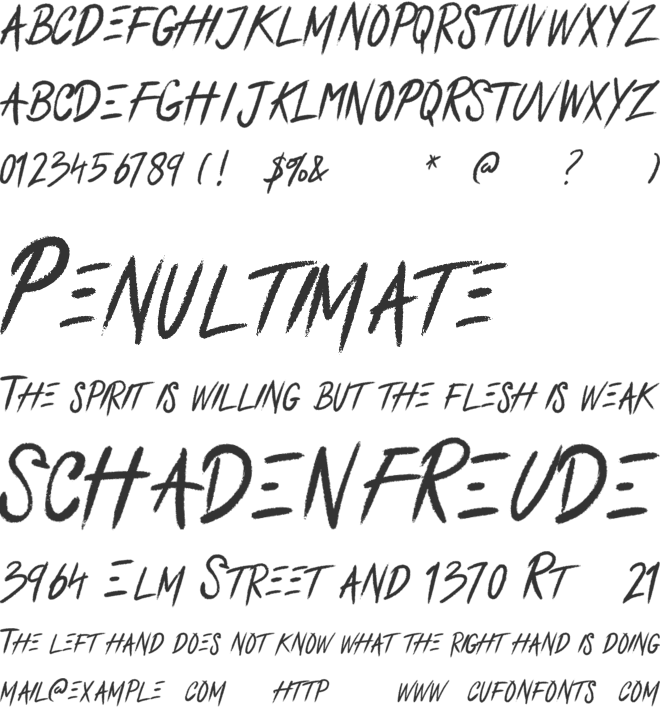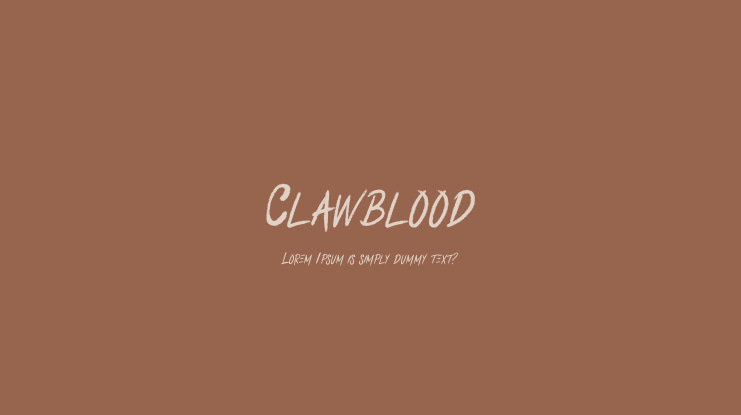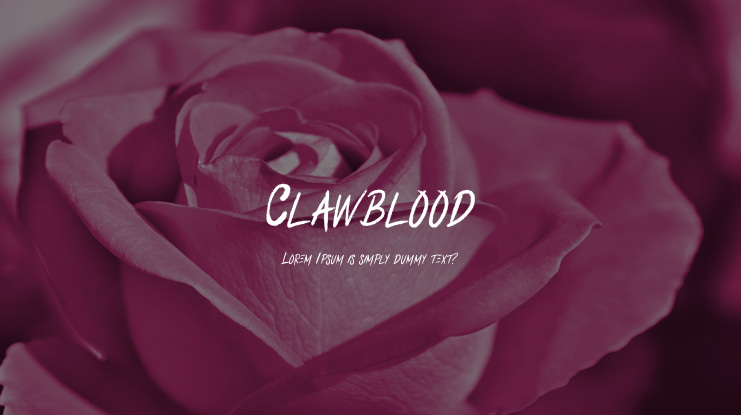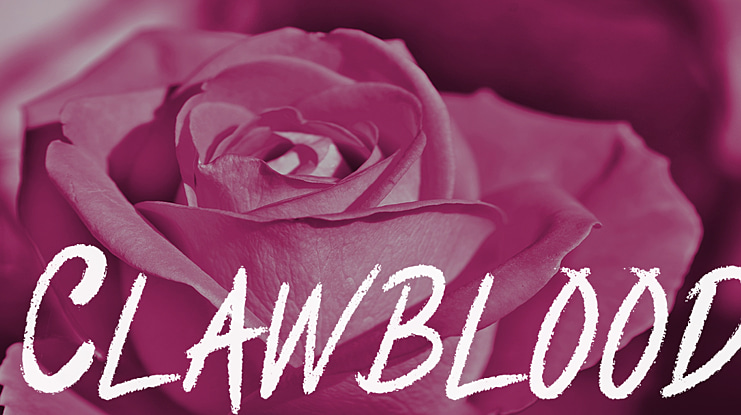
Clawblood Font
CLAWBLOOD is a font with a modern look and energetic. With extra attention to quick strokes and sharp details, CLAWBLOOD is ready and perfectly fit for your logo designs, music projects & social media posts, event poster, brand imagery, product packaging, handwritten quotes, merchandise, etc.